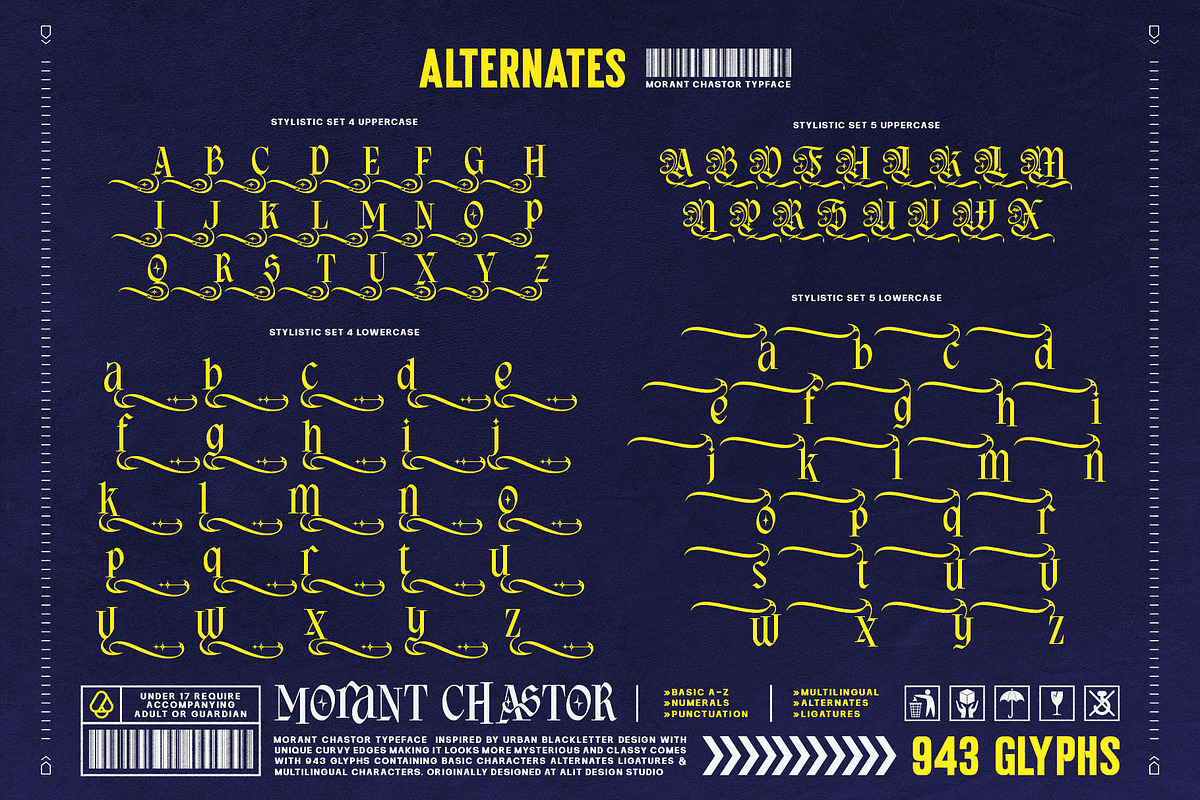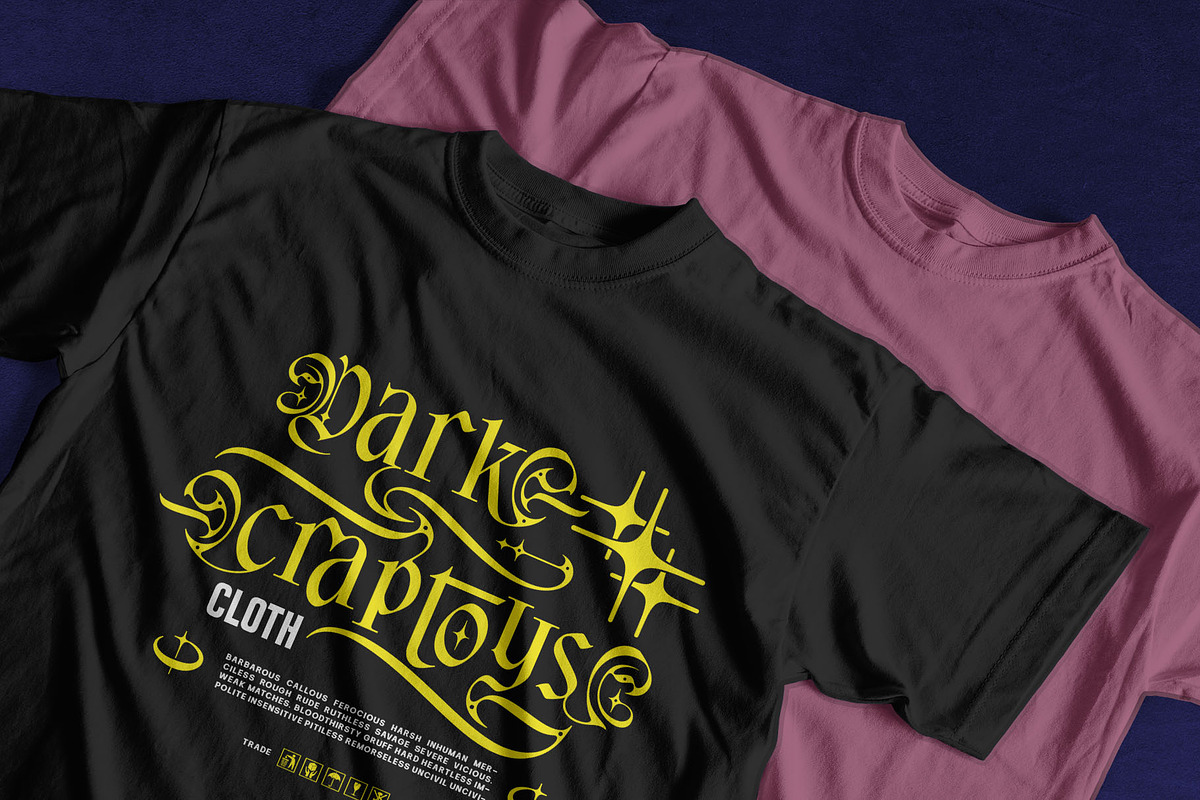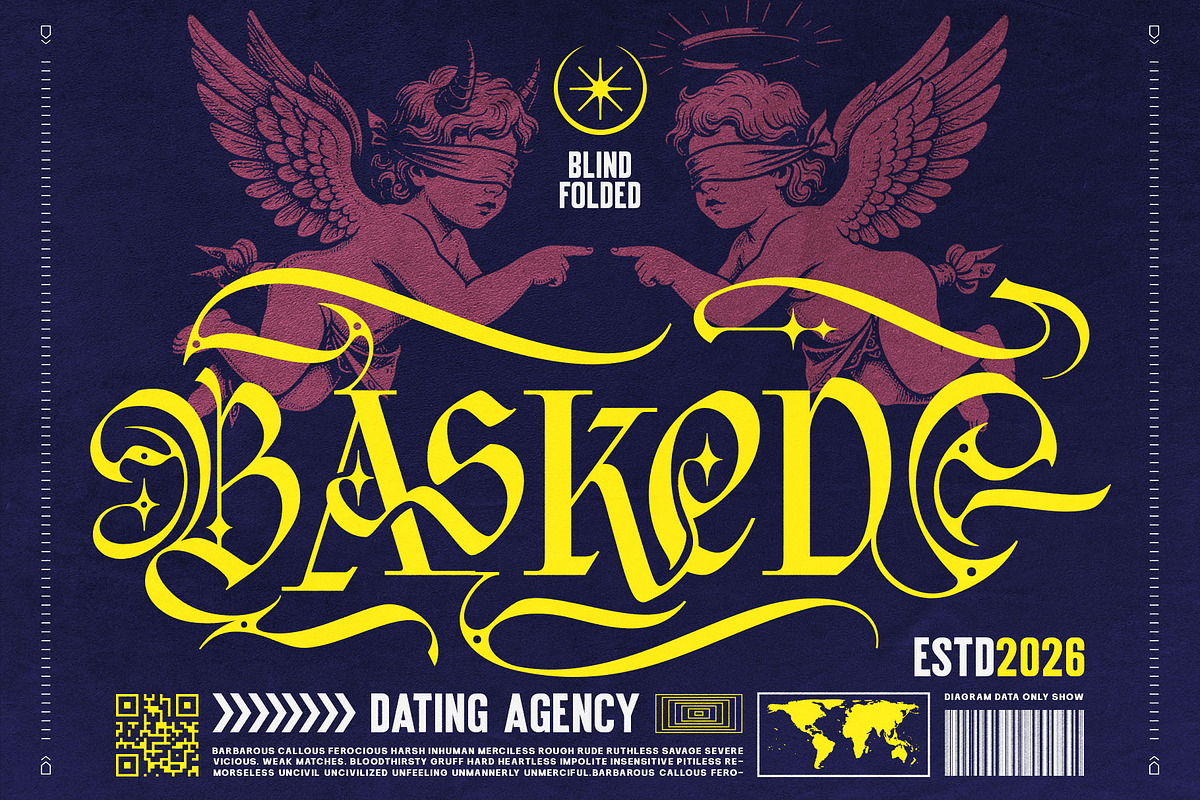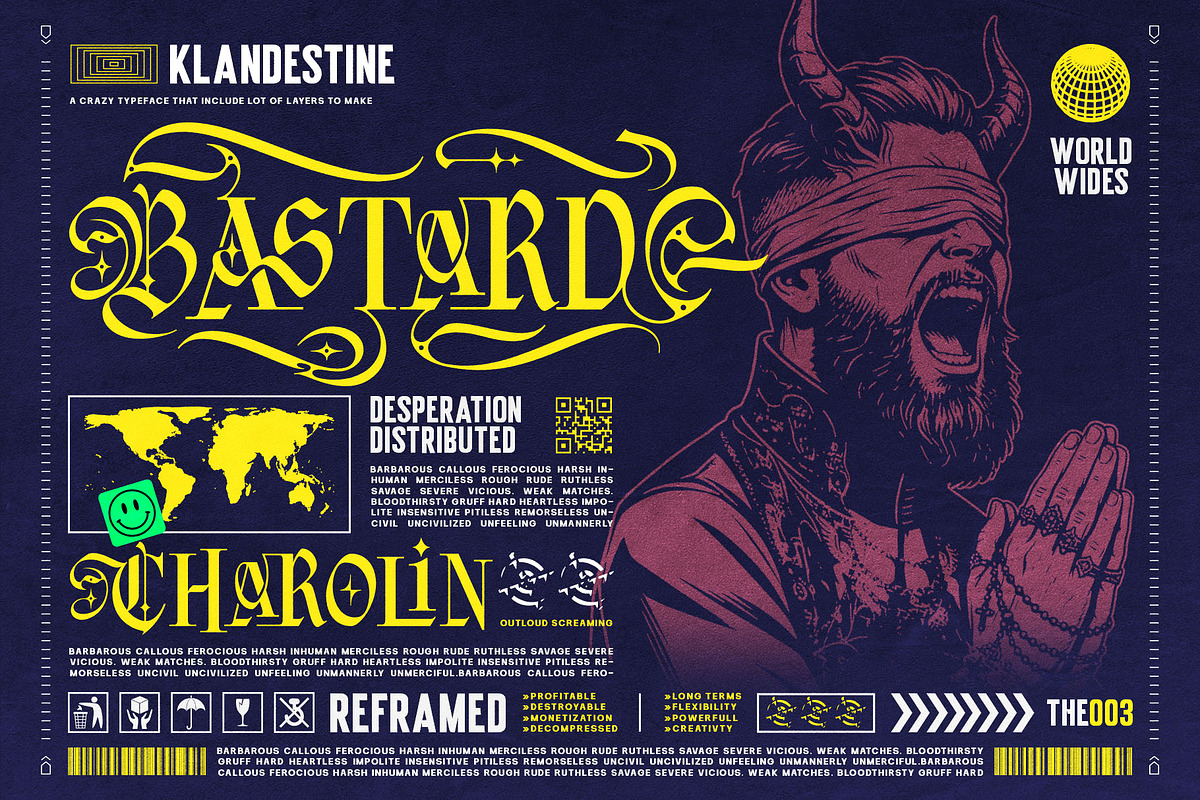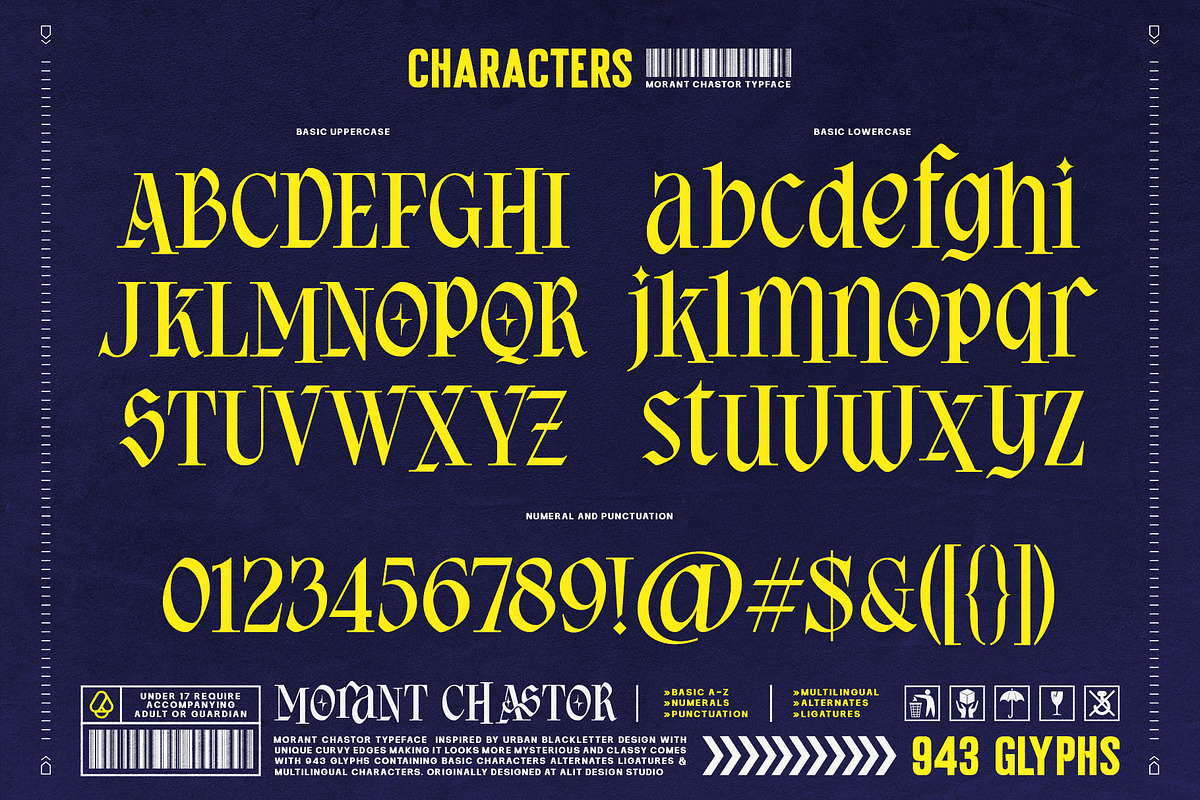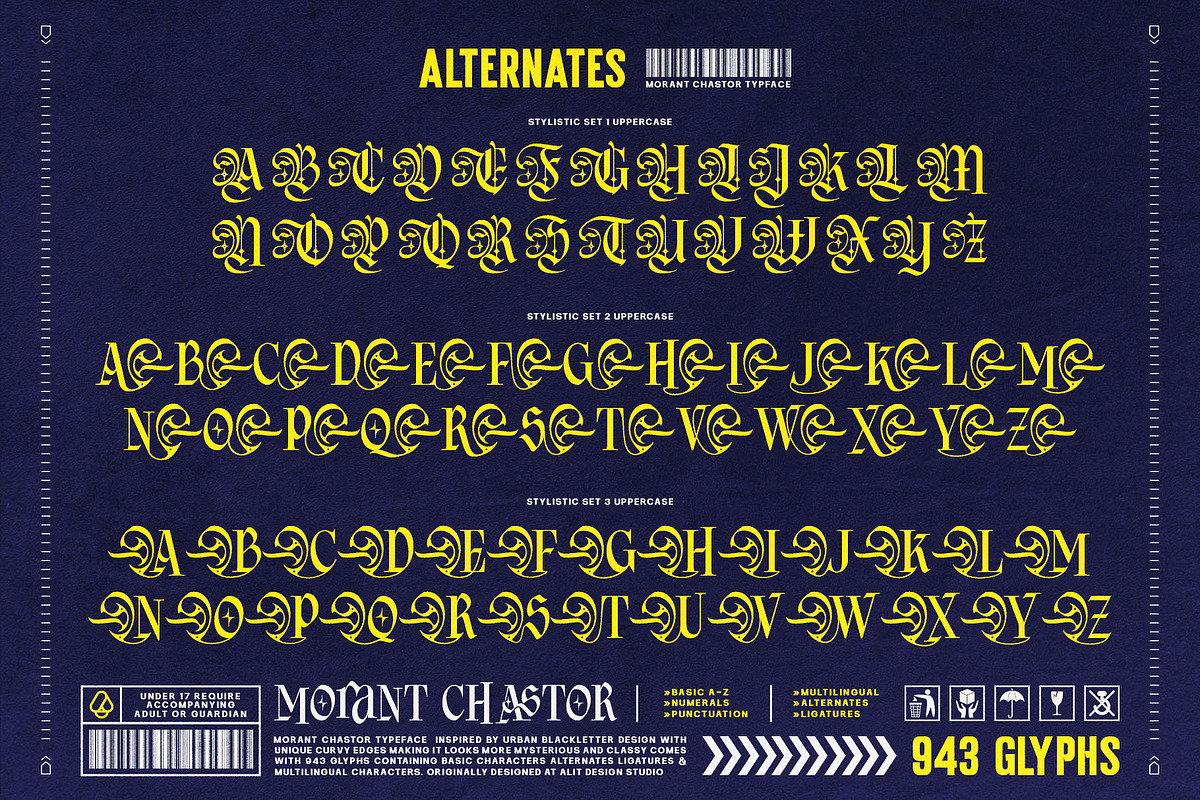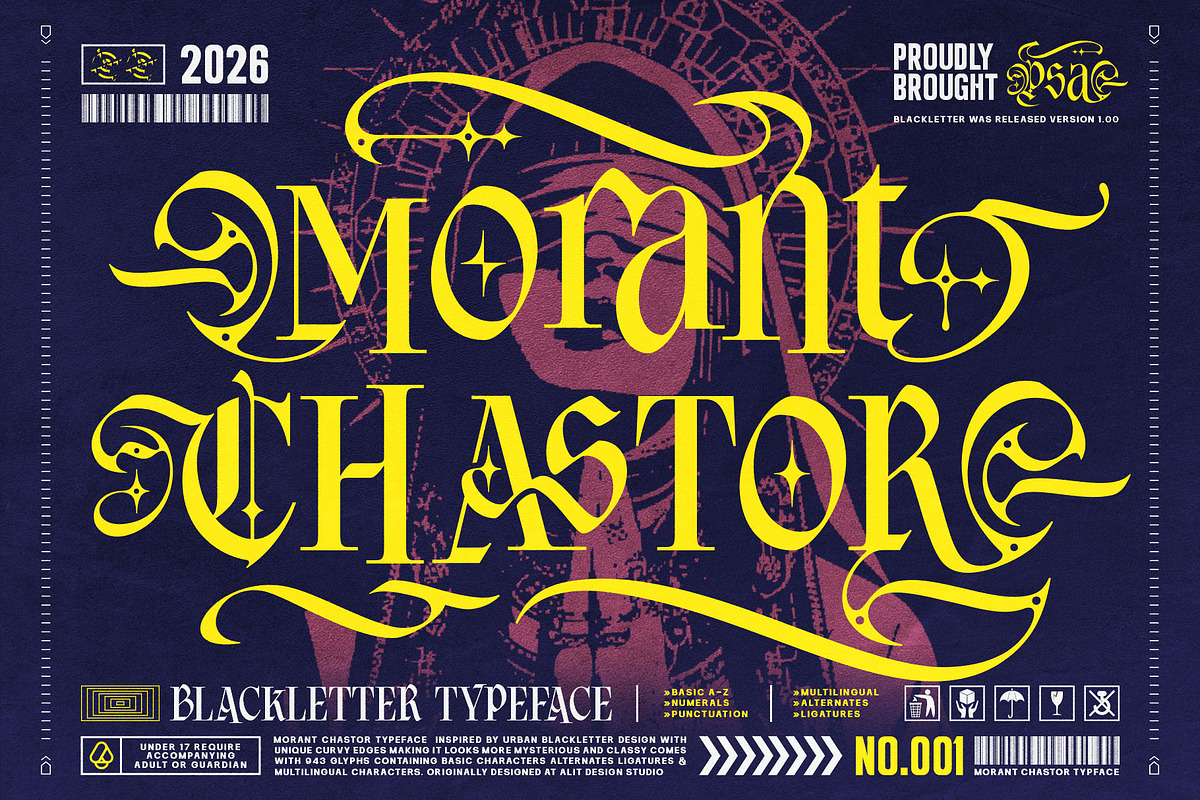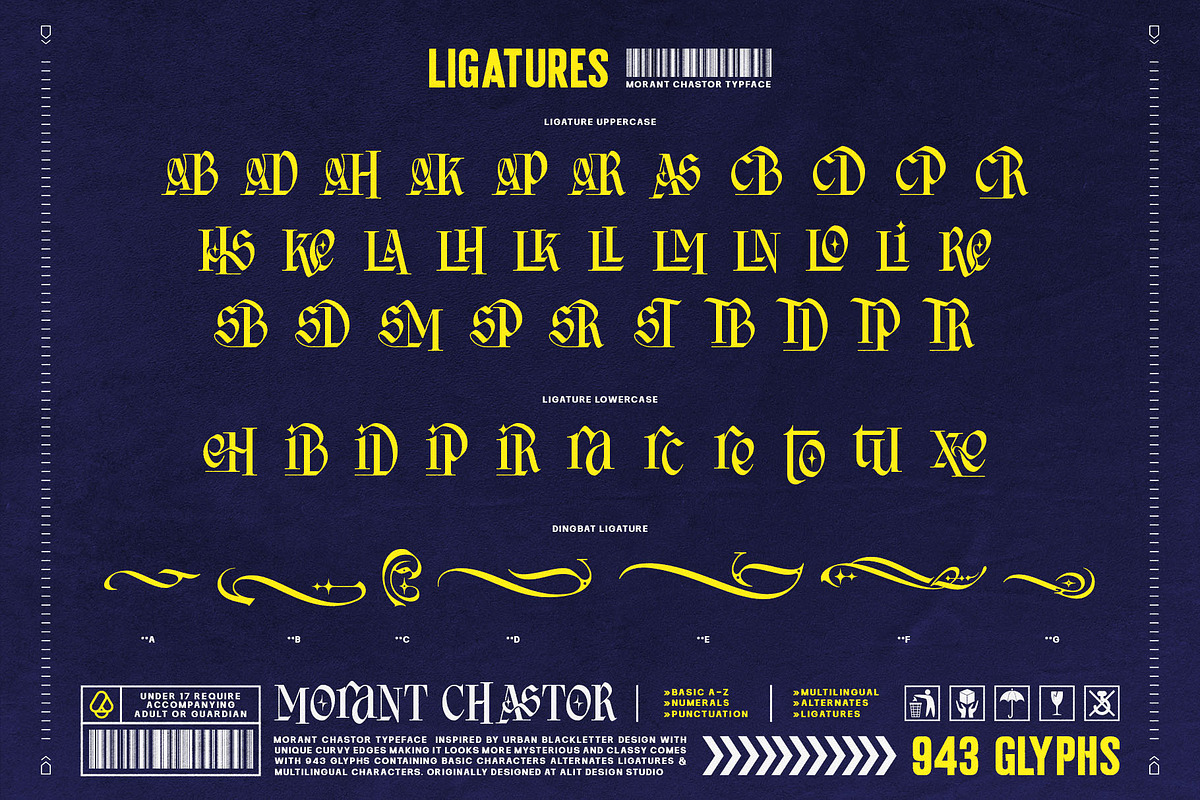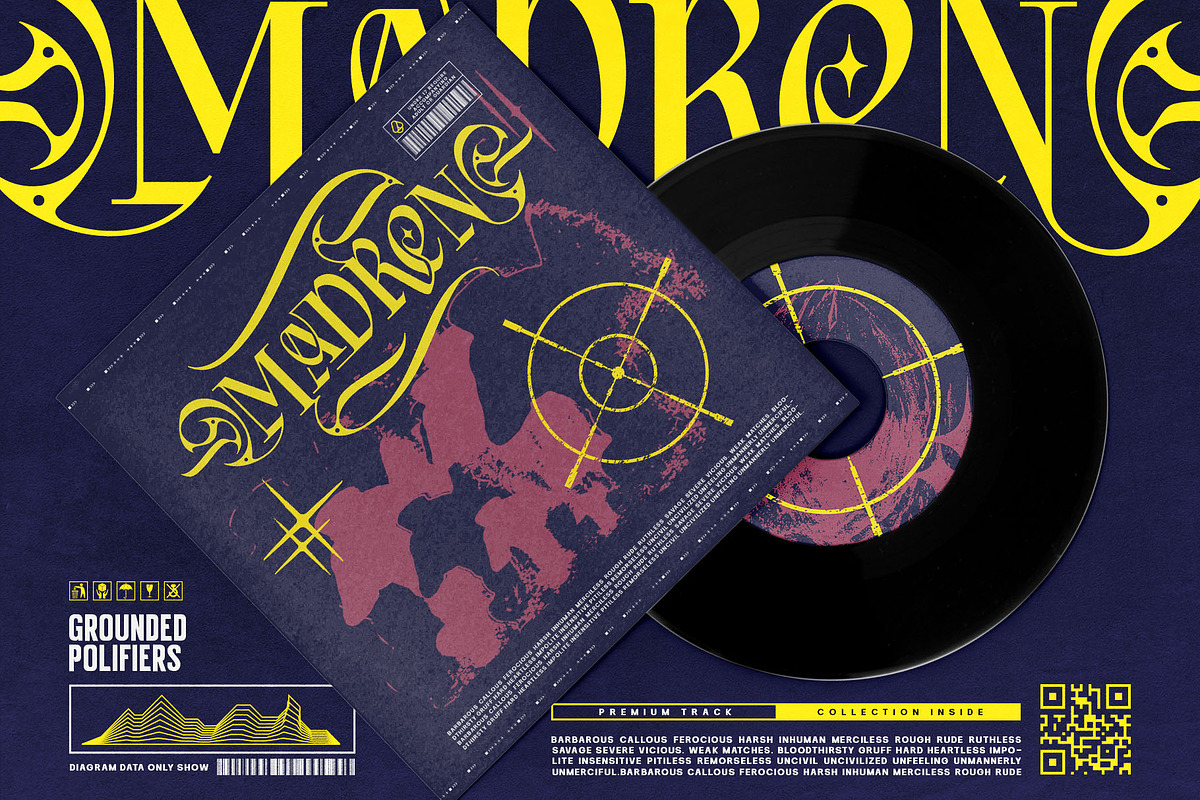
Morant Chastor Typeface
Morant Chastor - The Elegant Urban Blackletter Typeface
About the Typeface Step into a world where classic typographic tradition meets modern urban rebellion. Morant Chastor, meticulously crafted by Alit Design, is a stunning blackletter typeface that perfectly captures the essence of savage elegance and neo-noir aesthetics. Inspired by the raw, unapologetic energy of urban street culture, this font reimagines the rigid structures of traditional gothic lettering by introducing unique, sweeping curvy edges, sharp terminals, and a highly stylized contrast. The result is a mysterious, classy, and deeply captivating typeface that instantly commands attention.
Unleash Your Creativity with 943 Glyphs Morant Chastor is not just a font; it is a comprehensive design toolkit. We have packed this typeface with an incredible 943 glyphs, giving designers absolute freedom to customize and experiment. Through its extensive OpenType features, you can access a massive variety of Stylistic Alternates (ranging up to SS12), intricate Swashes, and beautifully crafted Ligatures. Whether you want to keep it highly legible for bold headlines or make it aggressively decorative for a striking logo, Morant Chastor adapts effortlessly to your creative vision.
Perfect For Any Edgy Project This typeface is tailor-made for projects that demand a strong, dominant, and vintage presence. It shines brilliantly across a wide range of commercial branding and artistic projects, including:
Streetwear & Apparel: Create hardcore, eye-catching t-shirt designs and clothing brand logos.
Motorcycle & Riding Club Branding: Perfect for custom rally decals, rider community badges, and bold patches.
Music & Entertainment: Design dark academia posters, edgy vinyl record covers, and heavy metal or alternative band merchandise.
Tattoo Studios: Authentic and elegant gothic lettering for studio signage or digital portfolios.
Premium Packaging: Elevate vintage beverage labels, liquor bottles, and artisan product packaging.
Exclusive Bonus: Custom Dingbats To complete your designs, Morant Chastor includes a special set of bonus Dingbats. This extra file is loaded with striking gothic ornaments, traditional flourishes, mystical stars, and decorative elements that pair flawlessly with the font, allowing you to build cohesive and highly detailed typographic layouts in seconds.
Comprehensive Basic Uppercase & Lowercase A-Z
Numerals, Punctuation & Symbols
Extensive Multilingual Support (Supports Western, Central, and Eastern European languages)
Hundreds of Stylistic Alternates & Swashes (SS01 - SS12)
Standard & Discretionary Ligatures